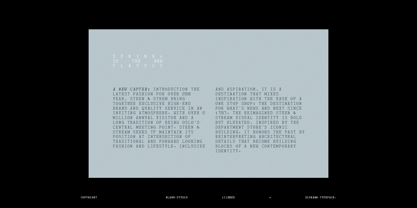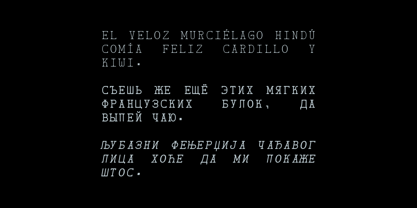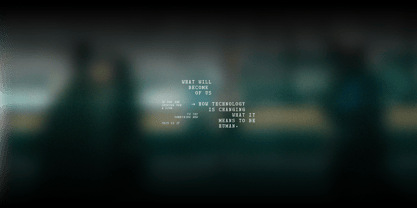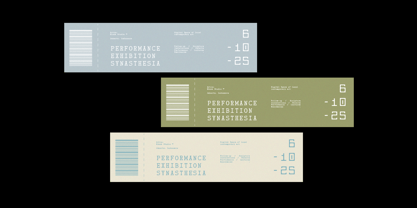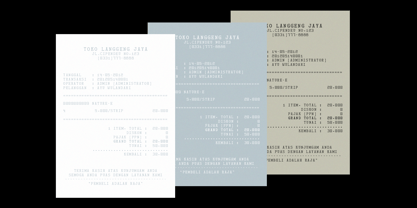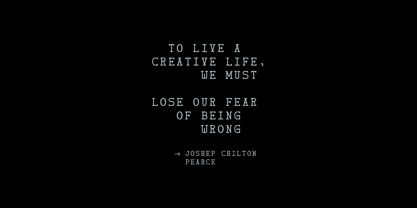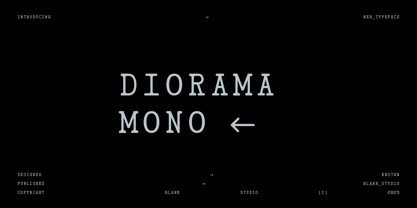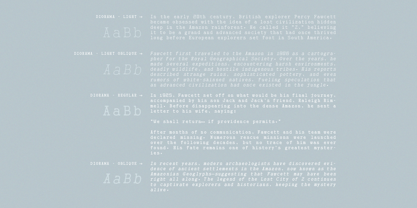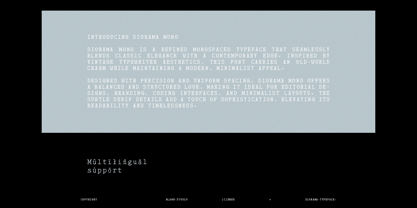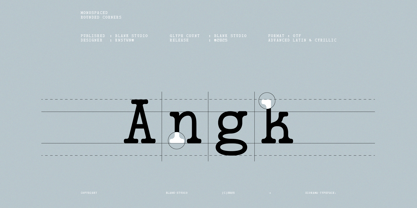
Diorama
by Blank Studio
The Diorama Font Family was designed by Roni Setiyawan and published by Blank Studio. Diorama contains 4 styles and family package options. More about this family
Introducing Diorama Mono
Diorama Mono is a refined monospaced typeface that seamlessly blends classic elegance with a contemporary edge. Inspired by vintage typewriter aesthetics, this font carries an old-world charm while maintaining a modern, minimalist appeal.
Designed with precision and uniform spacing, Diorama Mono offers a balanced and structured look, making it ideal for editorial designs, branding, coding interfaces, and minimalist layouts. The subtle serif details add a touch of sophistication, elevating its readability and timelessness.
Whether used for retro-inspired projects or sleek modern compositions, Diorama Mono bridges the gap between past and present, providing a versatile and stylish typographic solution.
Designers: Roni Setiyawan
Foundry: Blank Studio